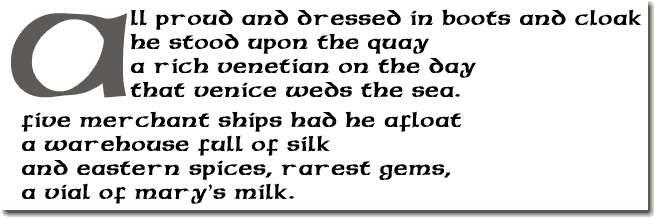
Capitals in an uncial alphabet - todays' fonts - 4 of 7 |
I noticed that the space after the 'r' is rather too big, and tried to create another version in Fontographer - but half the characters didn't show up, I don't know enough to understand why There seems to be no data in the font about its author: Mac users can get it here, the Windows version is on the The Font Fairy's web-site. |